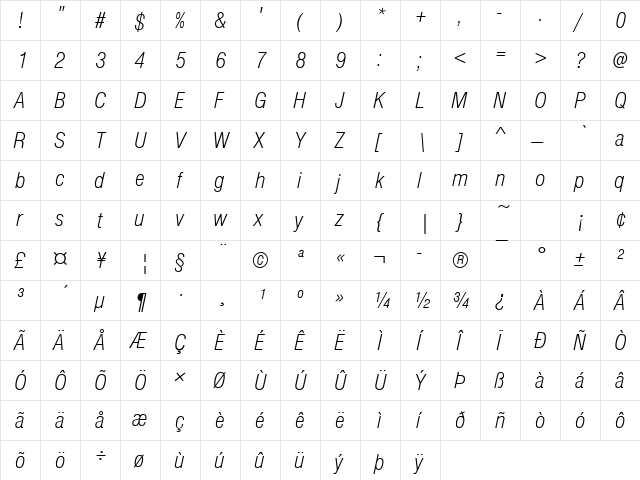
Nimbus Sans Becker DLigCon Italic
Design Context for Nimbus Sans Becker DLigCon Typeface
Nimbus Sans Becker DLigCon offers clean, dependable letterforms without strong stylistic allegiance, making it a practical choice for designers who need flexibility. Its italic angle brings a sense of urgency and motion to the letterforms.
Pro Tip: Use Nimbus Sans Becker DLigCon for emphasis, pull quotes, and subheadings where its slanted energy can add rhythm to the layout.